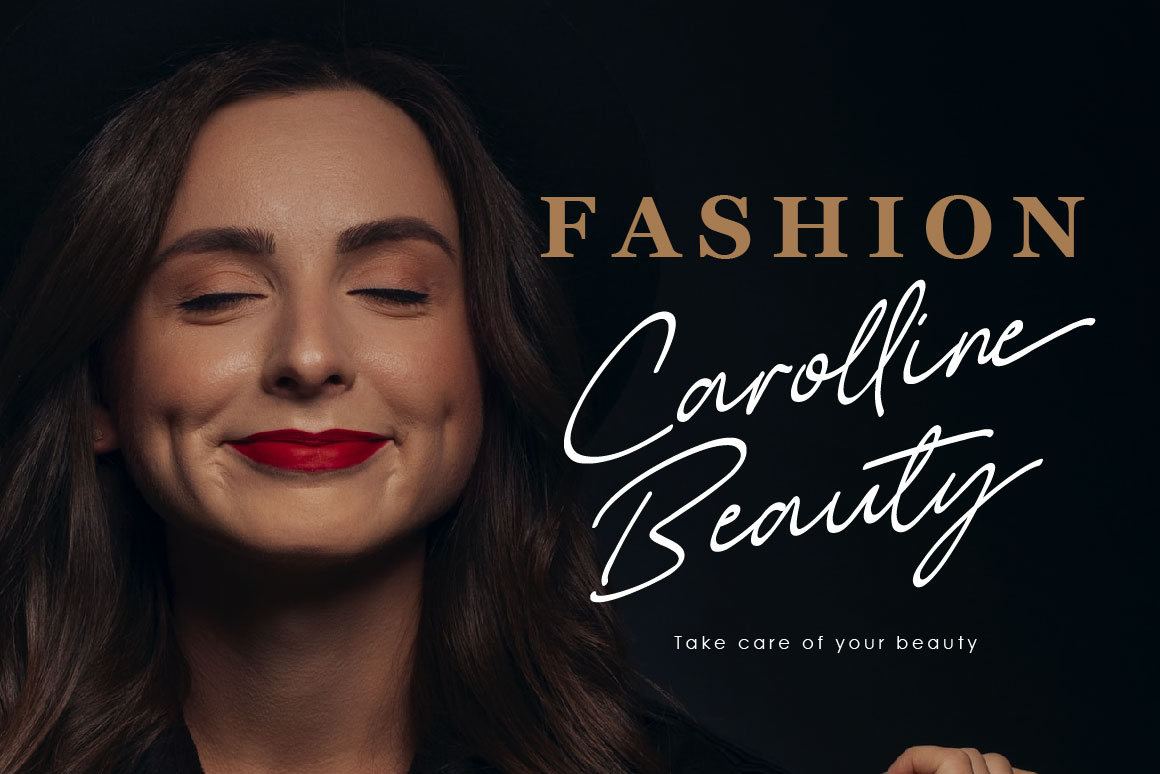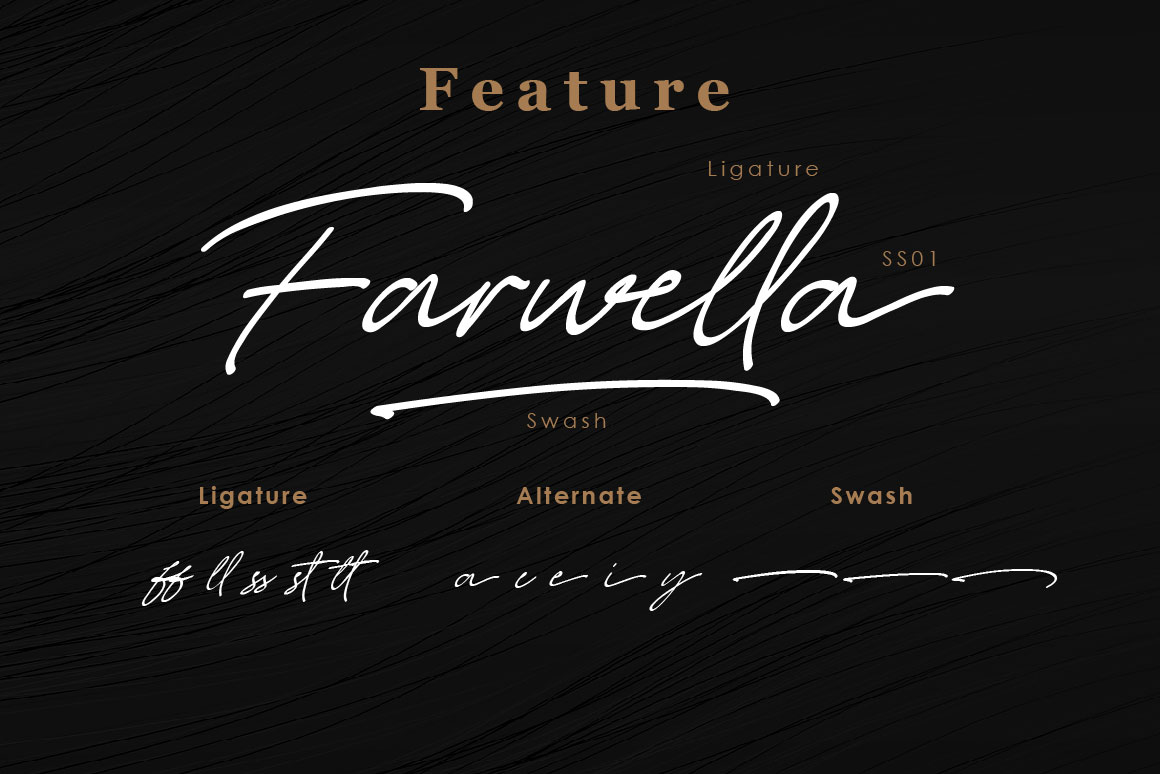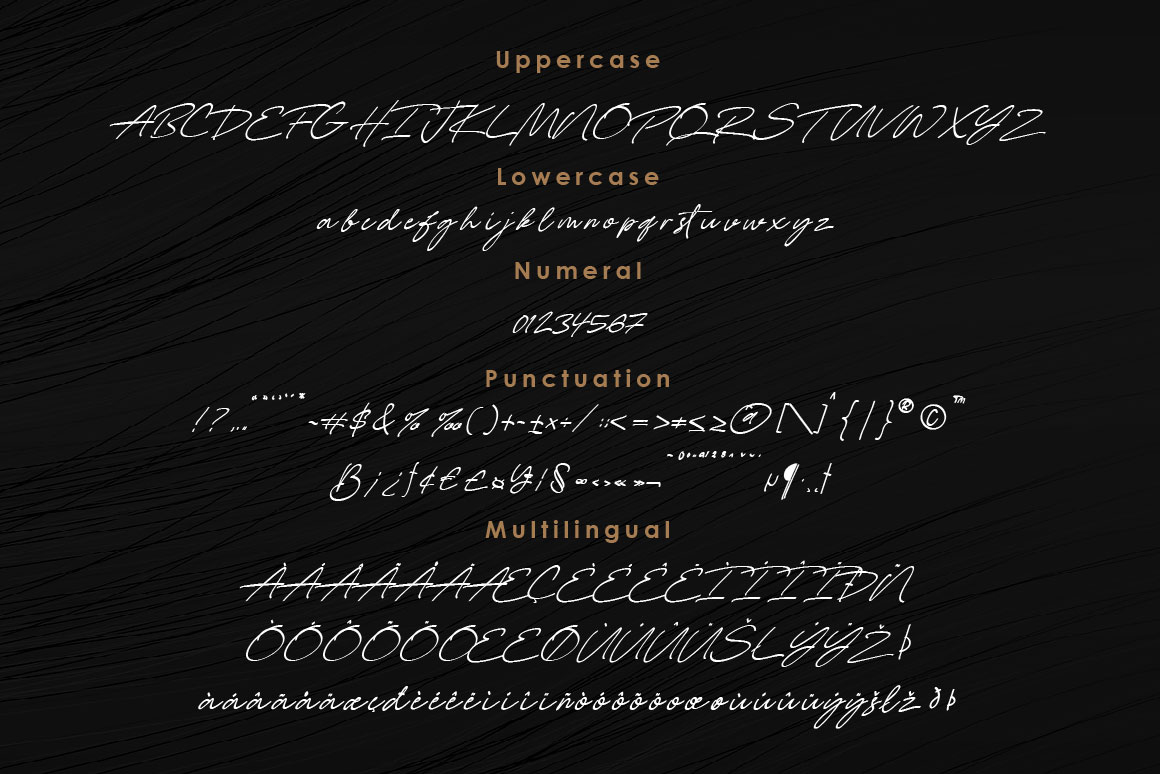
Farwell Font
Farwell Script Font
This is a stylish and light script font, that exudes elegance and class. This font was particularly crafted for those who need a beautiful and refreshing look to their designs. This font is PUA encoded which means you can access all of the glyphs and swashes with ease!
Balevgraph Studio